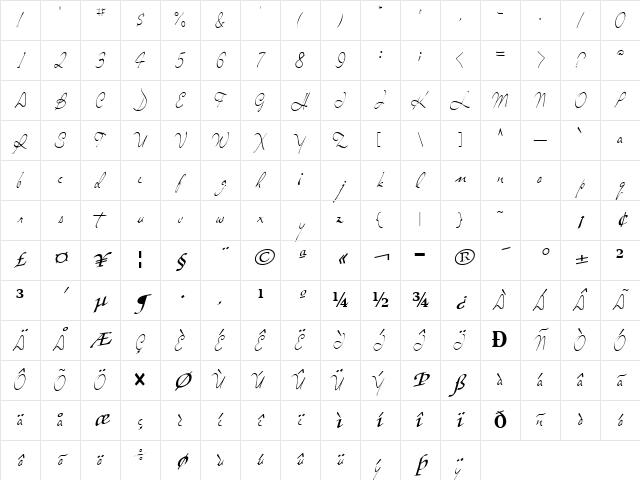
SingOutNew62 Regular
SingOutNew62 Family
Design Context for SingOutNew62
SingOutNew62 is a composed and adaptable typeface that performs quietly and consistently across a wide range of design contexts.